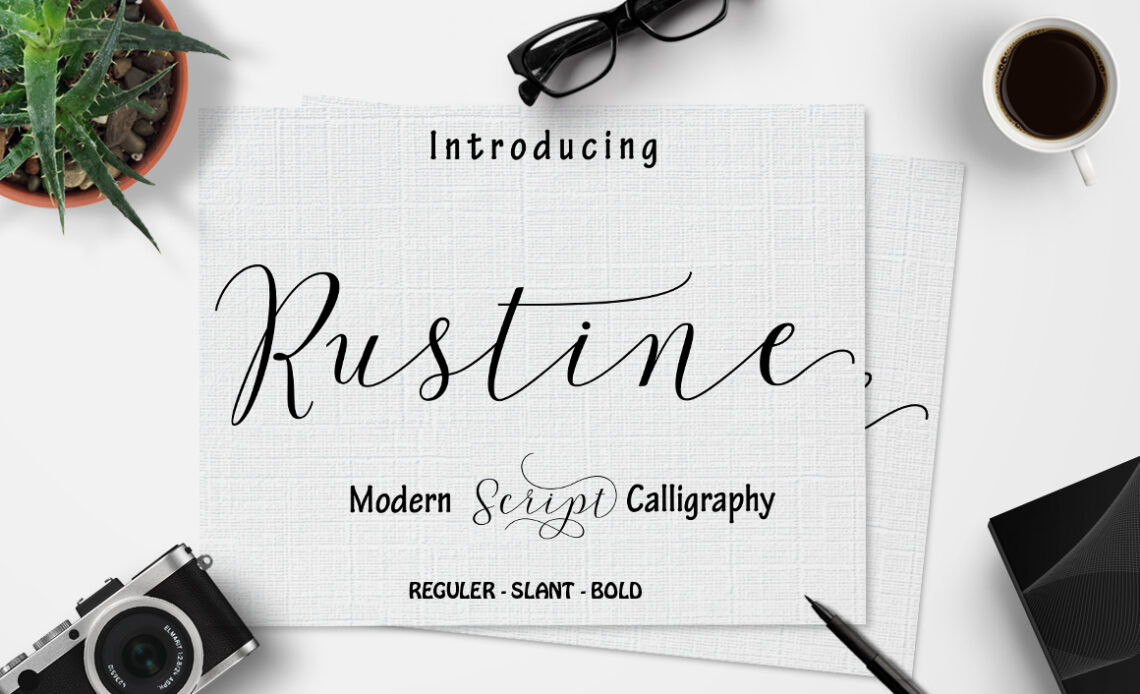
Dive into the world of exquisite typography with Rustine Font, an enchanting script font that exudes elegance and charm. Its graceful letters, adorned with decorative swirls and flourishes, add a touch of whimsy and individuality to your designs. As a calligraphy-style font, Rustine dances across the screen, embodying the beauty of handwritten artistry.
Unleash your creativity with Rustine, a versatile font that complements a myriad of projects. Whether it's crafting captivating logos, designing eye-catching posters, or adding a personal touch to invitations and greeting cards, Rustine's allure knows no bounds. Allow your words to take center stage, adorned with this captivating font that promises to leave a lasting impression.
With Rustine, you'll elevate your designs to new heights. Its smooth, decorative letters bring an air of refinement and sophistication, transforming your creations into masterpieces of visual delight. Imagine your designs adorned with this exquisite font, capturing the attention of all who lay eyes upon them.
Rustine's compatibility extends to a wide range of applications, ensuring seamless integration into your design workflow. Effortlessly add this font to your arsenal and watch as your designs flourish with its enchanting presence. In seconds, you'll witness the transformation of ordinary text into captivating works of art.
As a creation of the renowned Cooldesignlab, Rustine inherits a legacy of excellence in font design. Cooldesignlab's passion for typography shines through in every curve and stroke of this font, ensuring that it meets the highest standards of quality and aesthetics.
So embark on a journey of creativity with Rustine Font. Let its elegance captivate your audience, leaving them in awe of your design prowess. Discover the endless possibilities that await you with this remarkable script font. Embrace Rustine today and unlock the gateway to design brilliance.